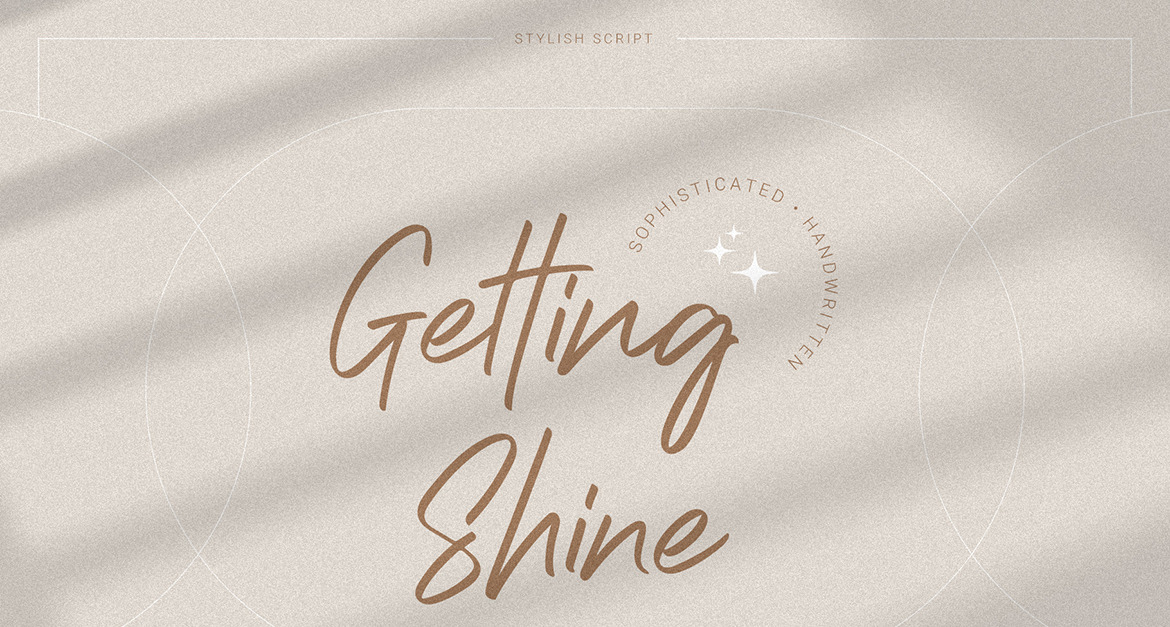
Getting Shine - Stylish Script Fonts
Introduction our Stylish Script, Getting Shine is a relaxed, cursive, and adaptable handwritten font, special for your quote or display Design, which puts a luxury, calm your projects, and will inspire you to create something unique design.
Getting Shine will help you to create special and touching typographical designs for your display quote projects, It is perfect for headings, flyers, greeting cards, product packaging, book cover, printed quotes, logotype, apparel design, album covers.
Getting Shine Features:
- Multi-language
- Punctuation
- Ligatures